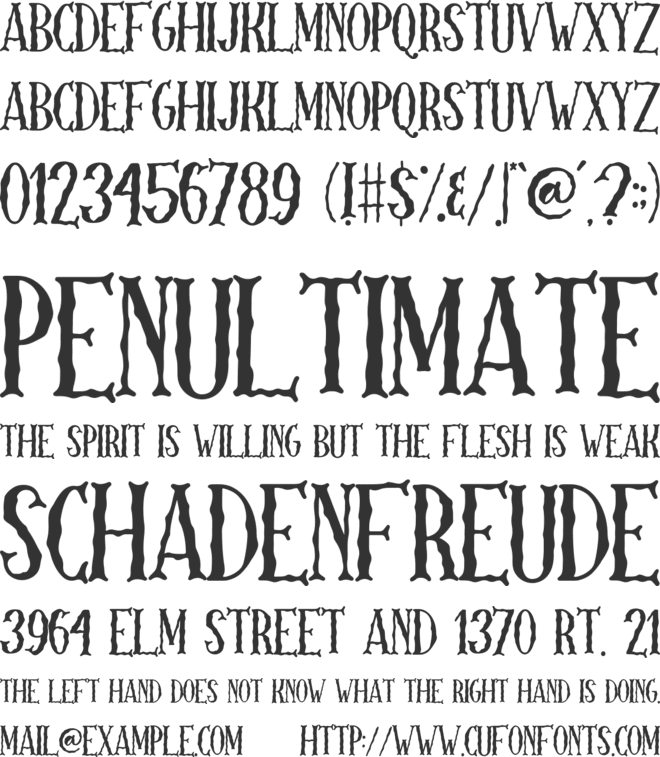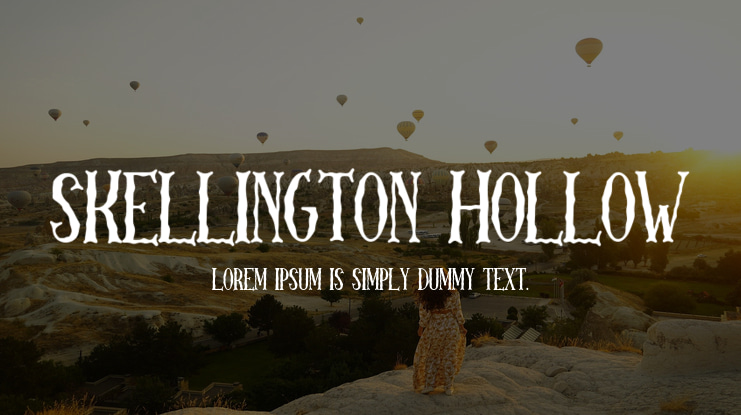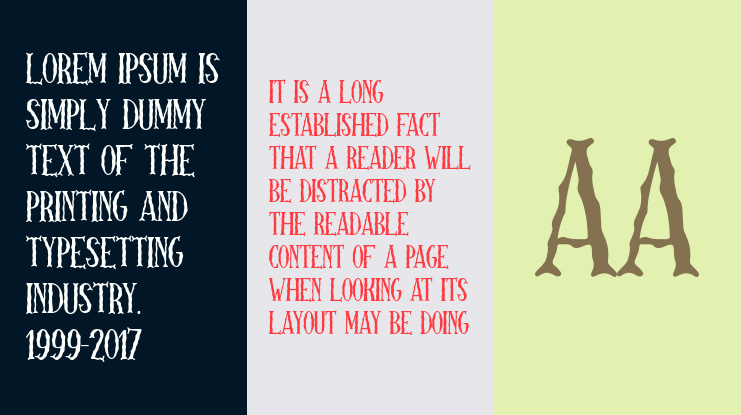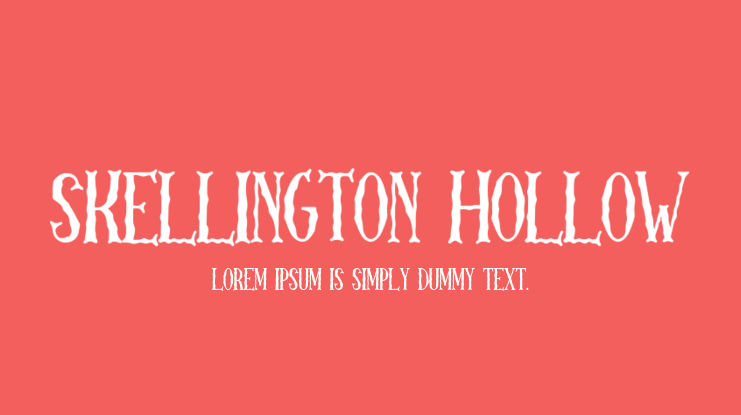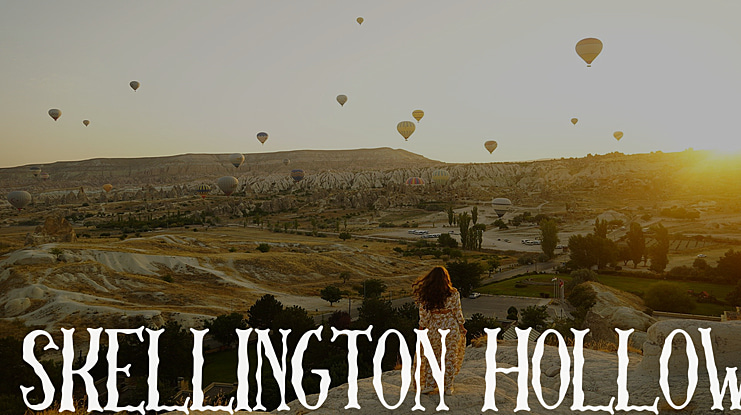
Skellington Hollow Font
Dimas Prasetyo
This enchanting font will turn any creative idea into a true standout. Perfect fit for all of your logos, branding, social media, etc.